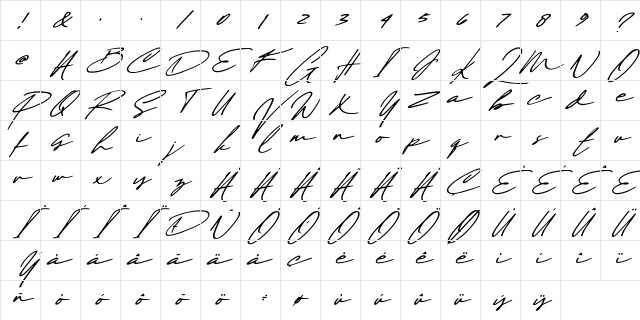
Complete Maddison Signature DEMO oblique DEMO glyph index. Displaying only characters natively supported by Maddison Signature DEMO oblique DEMO font.
Maddison Signature DEMO is a composed and adaptable typeface that performs quietly and consistently across a wide range of design contexts. The slanted form adds forward momentum and visual energy.
Pro Tip: Use Maddison Signature DEMO for emphasis, pull quotes, and subheadings where its slanted energy can add rhythm to the layout.